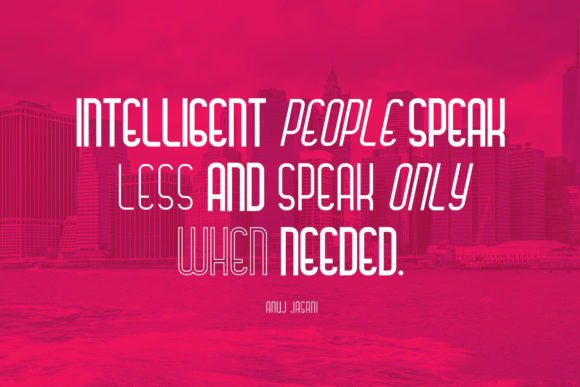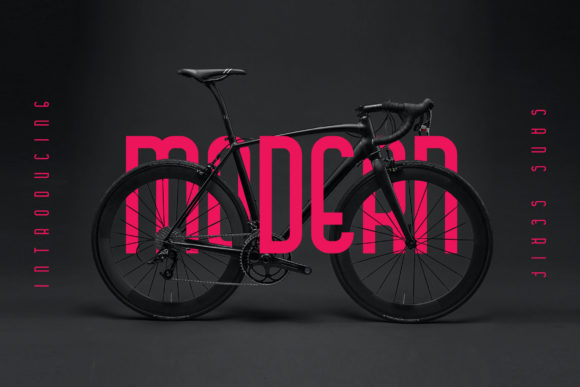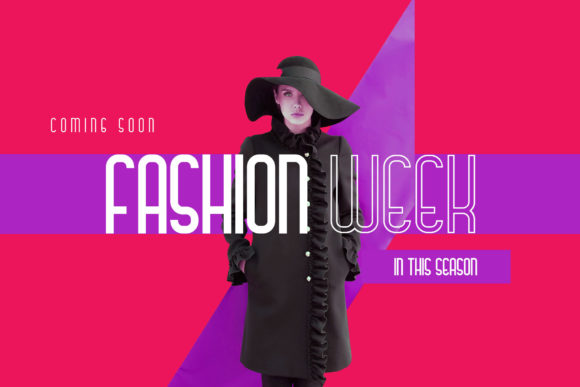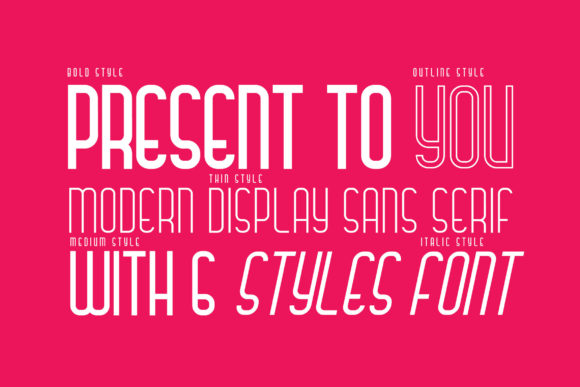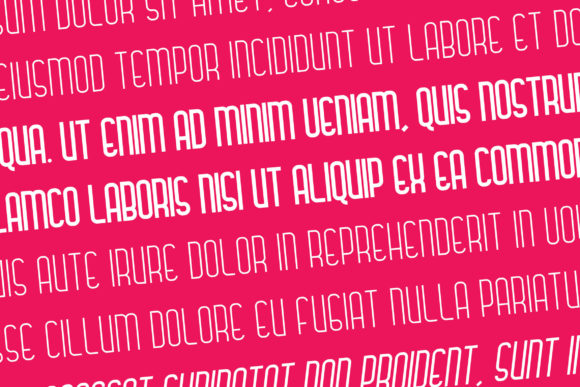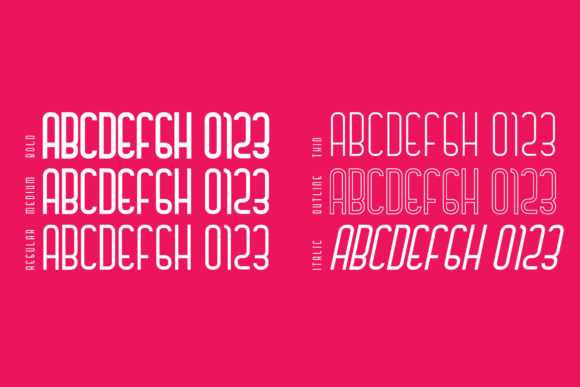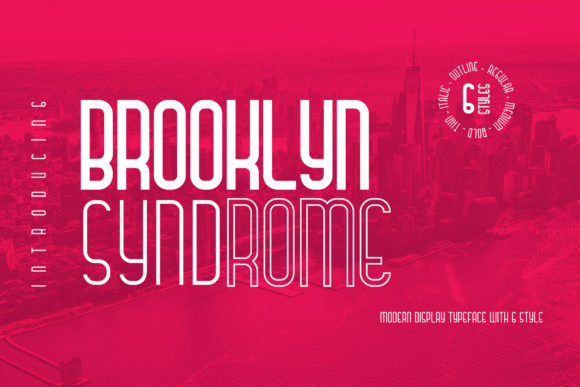
Introducing Brooklyn Syndrome – Modern Display Font
In the world of typography, a new star has emerged, and it’s taking the design community by storm. Brooklyn Syndrome, a modern and cool display font, is making waves with its square letters and bold appearance. This font is not just a stylish addition to your design arsenal; it’s a game-changer. Whether you’re a seasoned designer or a crafty DIY enthusiast, Brooklyn Syndrome is about to become your new best friend.
What is Brooklyn Syndrome?
Brooklyn Syndrome is a contemporary display font that boasts a unique blend of modernity and sophistication. Its square-shaped letters exude confidence and boldness, making it the perfect choice for designers looking to make a statement. This font is versatile and can be used across a wide range of projects, from cards and branding materials to labels and more.
The Perfect Use Cases for Brooklyn Syndrome
So, where can you use Brooklyn Syndrome to make an impact? The possibilities are endless, but here are some of the top use cases for this amazing font:
- Logos, Branding, & Signatures: Create a lasting impression with a bold and modern logo that sets your brand apart.
- Flyers, Album Covers, Magazines, & Advertisements: Grab attention with a font that’s sure to stand out in any design.
- Website Design, Design Blogs, & Fashion: Elevate your online presence with a font that’s both stylish and readable.
- Quote Graphics for Social Media: Make your social media posts more engaging and shareable with eye-catching quote graphics.
What Makes Brooklyn Syndrome Special?
Brooklyn Syndrome is not just another font; it’s a design powerhouse. Here are some features that make it special:
- PUA Encoded: This font is PUA (Private Use Area) encoded, which means you can access all the glyphs and swashes with ease. This feature makes it incredibly user-friendly and versatile.
- Wide Range of Applications: From professional design projects to personal crafting ideas, Brooklyn Syndrome can be used in a multitude of ways.
- Easy to Use: Whether you’re a pro at designing or just starting out, Brooklyn Syndrome is easy to incorporate into your projects.
Tips for Using Brooklyn Syndrome
To get the most out of Brooklyn Syndrome, here are some tips to keep in mind:
- Experiment with Sizes and Colors: Don’t be afraid to play around with different sizes and colors to see what works best for your project.
- Mix and Match: Combine Brooklyn Syndrome with other fonts for a unique and personalized look.
- Keep it Simple: Sometimes, less is more. Let the boldness of Brooklyn Syndrome speak for itself by keeping your design clean and simple.
Brooklyn Syndrome is more than just a font; it’s a design revolution. With its modern and bold appearance, it’s set to become a staple in the design community. Whether you’re working on a professional project or a personal crafting idea, Brooklyn Syndrome is the perfect choice. Its versatility, ease of use, and stunning looks make it a must-have for any designer or crafter looking to elevate their work.
Ready to take your designs to the next level? Brooklyn Syndrome is here to help. With its square letters, bold appearance, and PUA encoding, this modern display font is everything you need to create stunning designs that stand out. So why wait? Dive into the world of Brooklyn Syndrome today and discover a new way to bring your creative visions to life.